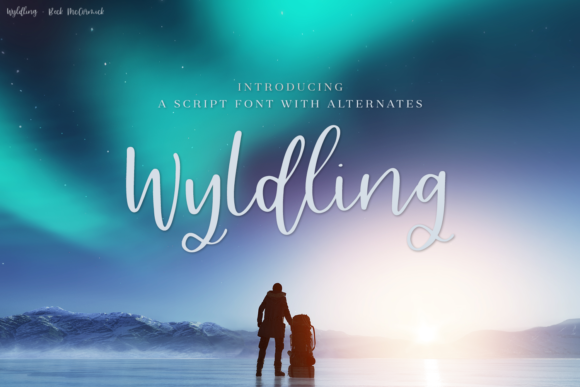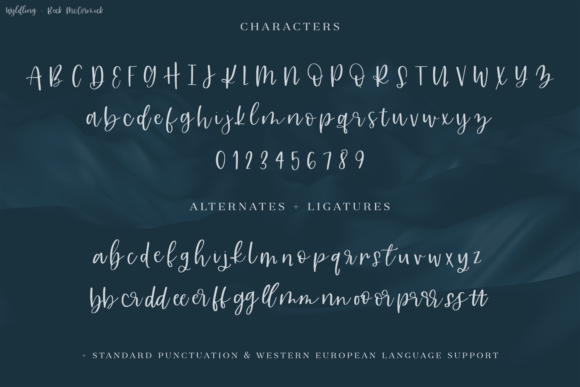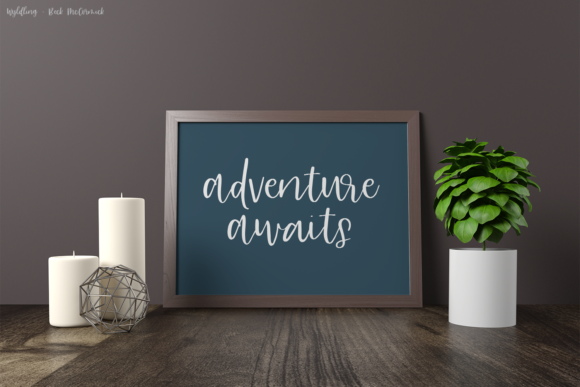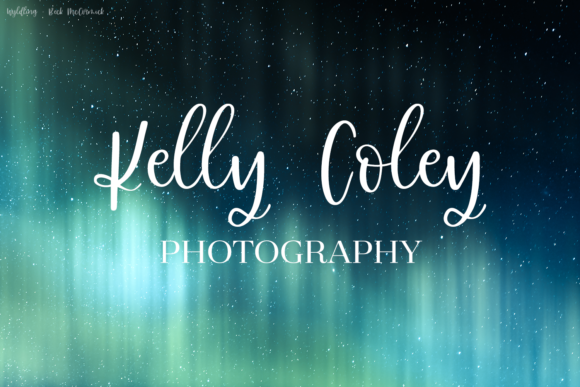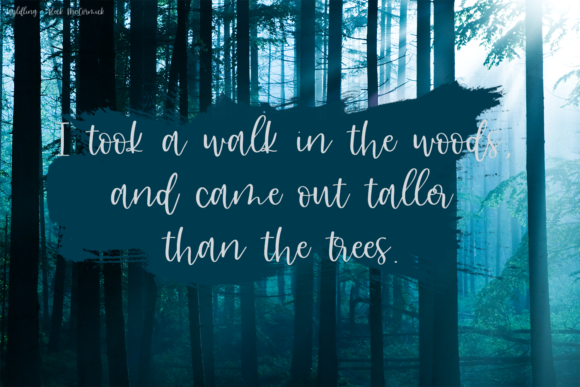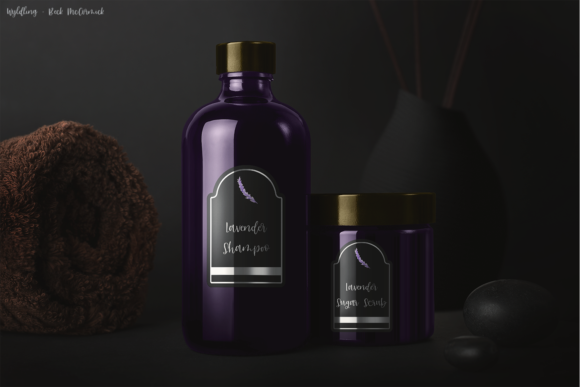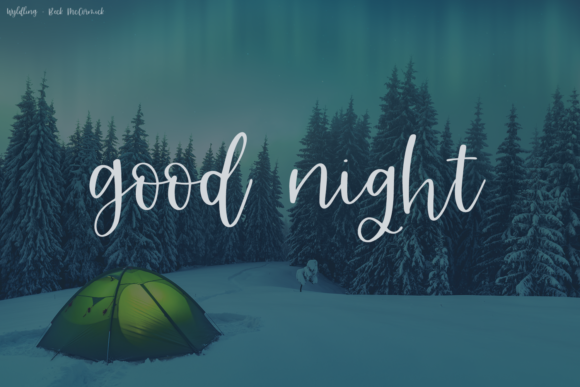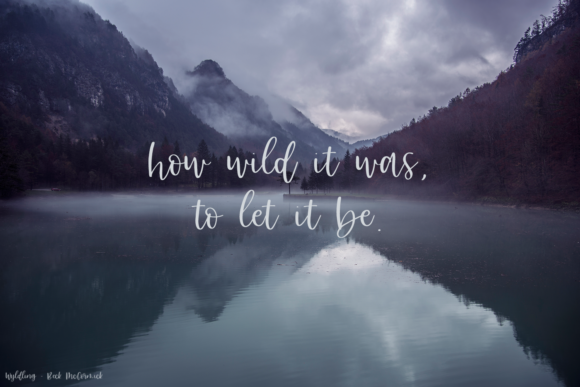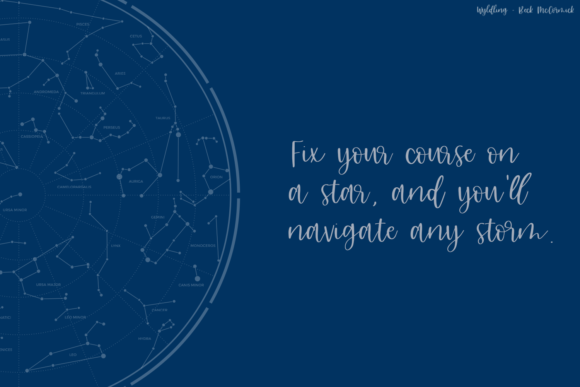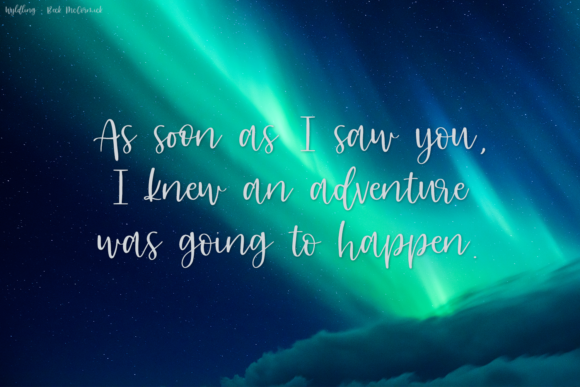
HomeScript FontsWyldling Script Font Script Fonts Wyldling Script Font FacebookXPinterestWhatsApp Wyldling Script Font Poster 2 Wyldling Script Font Poster 3 Wyldling Script Font Poster 4 Wyldling Script Font Poster 5 Wyldling Script Font Poster 6 Wyldling Script Font Poster 7 Wyldling Script Font Poster 8 Wyldling Script Font Poster 9 Wyldling Script Font Poster 10 About Wyldling Script Font Wyldling is a carefully handcrafted script with a bold feel. It will add a unique charm to any design project! DOWNLOAD NOW People also explored Sakura Blossom Font Watercolor Font Romarans Font Romantic Font Sugar Lorraine Font Dark Mocha Font Ink Scale Font Home Font Ferguson Family 352 0 TagsWyldling Script Font Previous articlePasto FontNext articleAbbassy Script Font LEAVE A REPLY Cancel reply Comment: Please enter your comment! Name:* Please enter your name here Email:* You have entered an incorrect email address! Please enter your email address here Website: Save my name, email, and website in this browser for the next time I comment. Personal Use Free Happy Garden Personal Use Free Read more about this font Crellia Script Personal Use Free Read more about this font Dealerplate California Personal Use Free Read more about this font Aragon Personal Use Free Read more about this font BLOG How to Install and Use Fonts on Windows, macOS, and Web Projects How to Install and Use Fonts on Windows, macOS, and Web Projects Fonts are a crucial part of design and branding. Whether you’re designing a... Best Fonts for YouTube Videos: Make Your Thumbnails Stand Out Transform Your Website: Elevate Your Typography with 7 Best Web Font Generators Where to Buy American Fonts Online in 2024